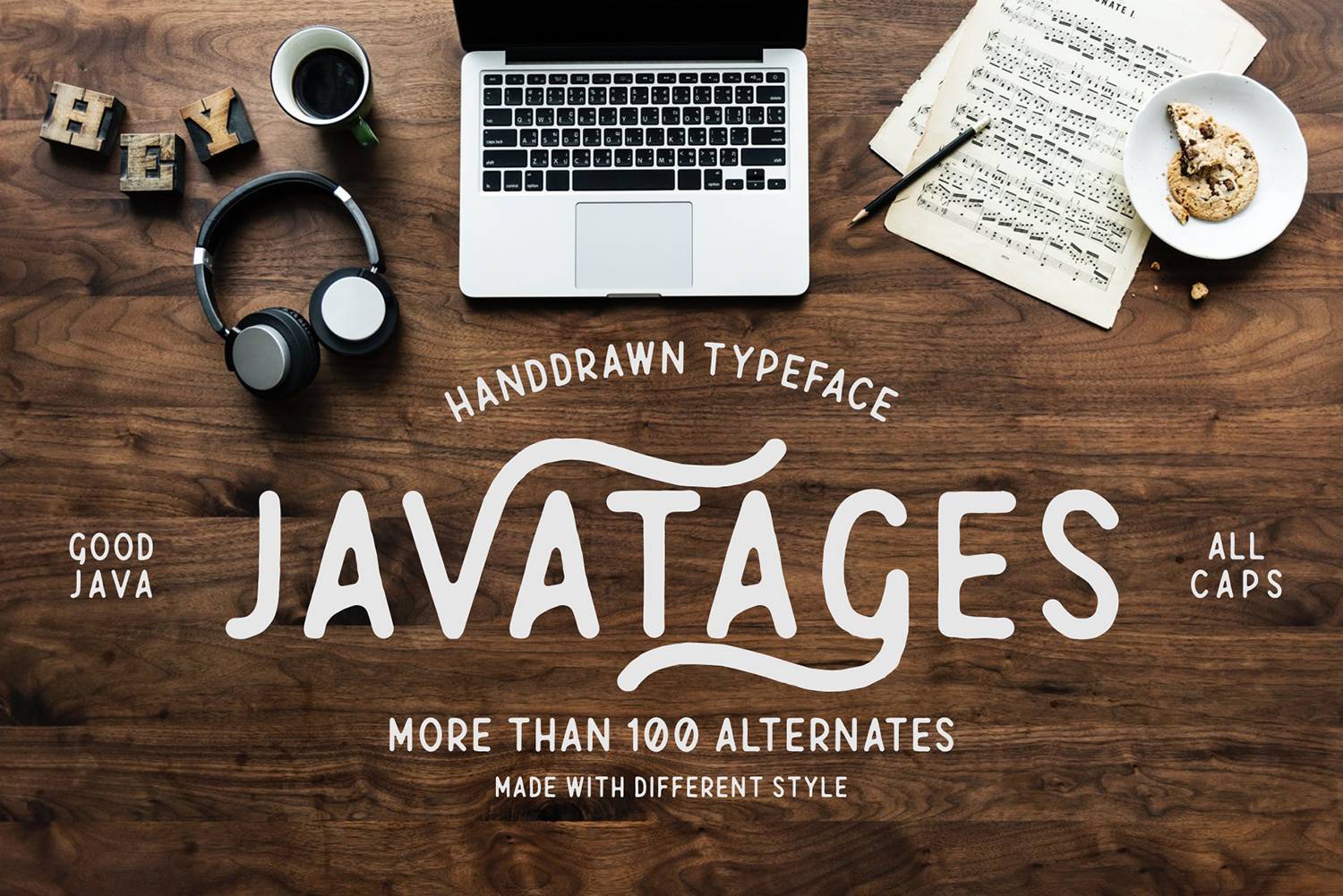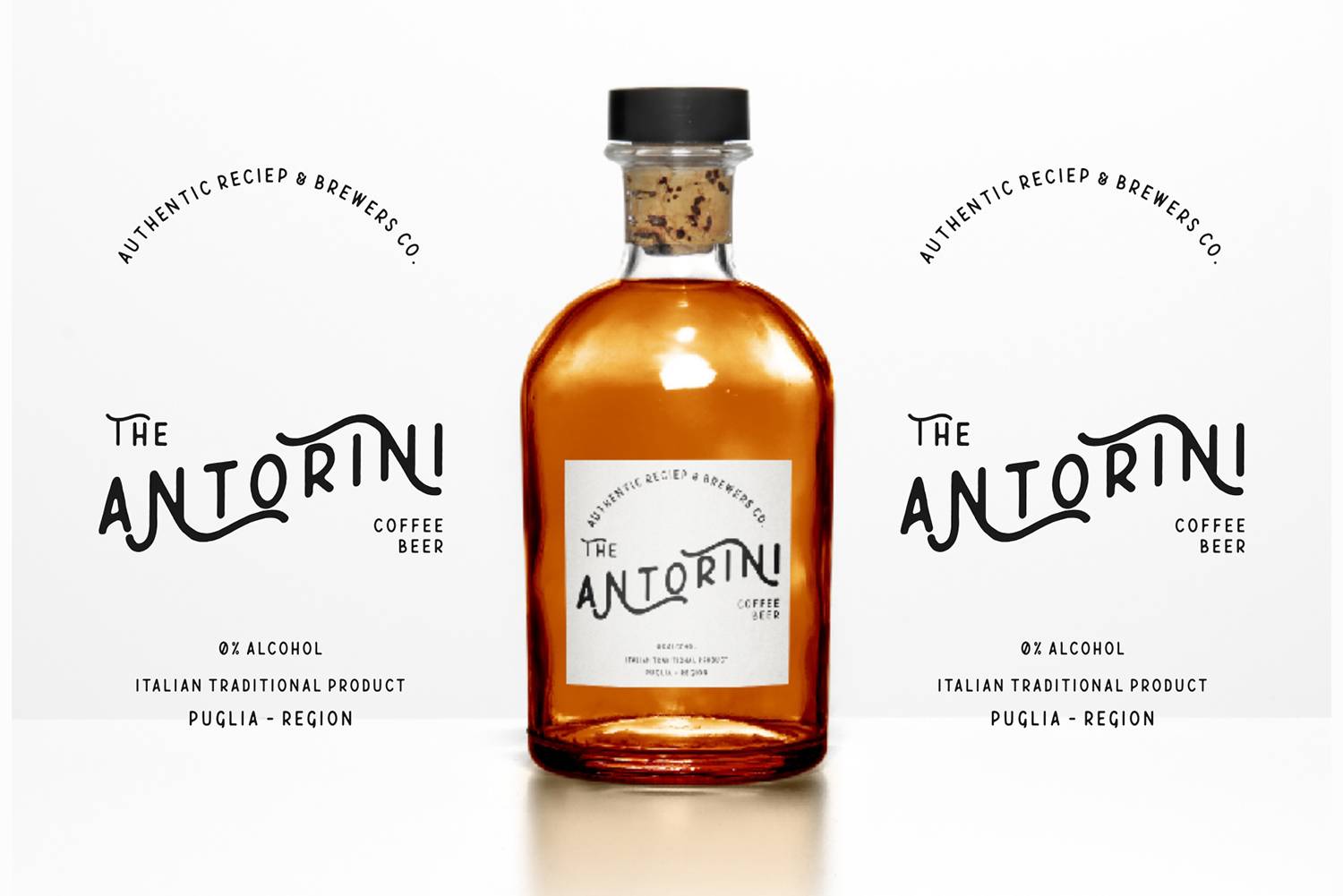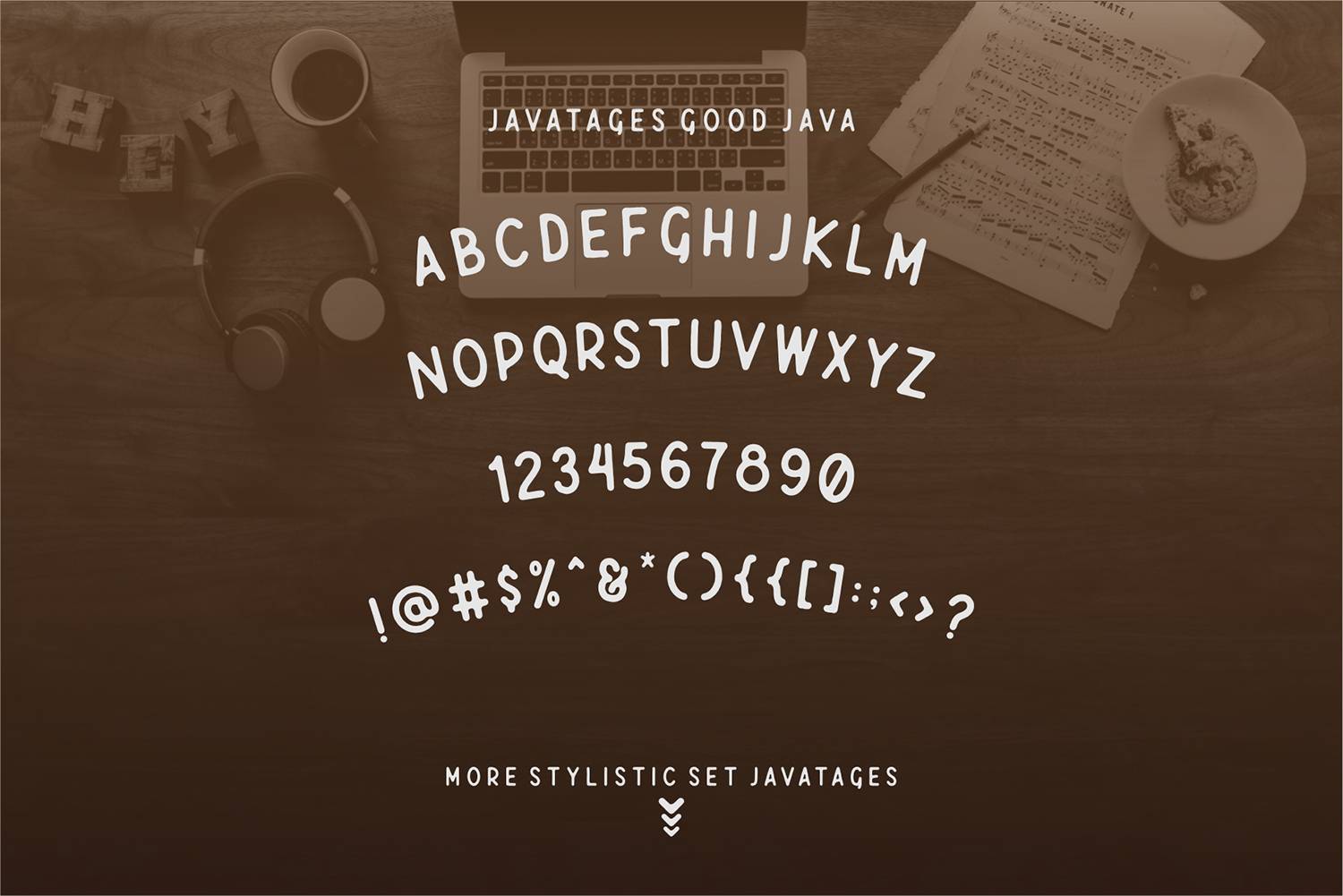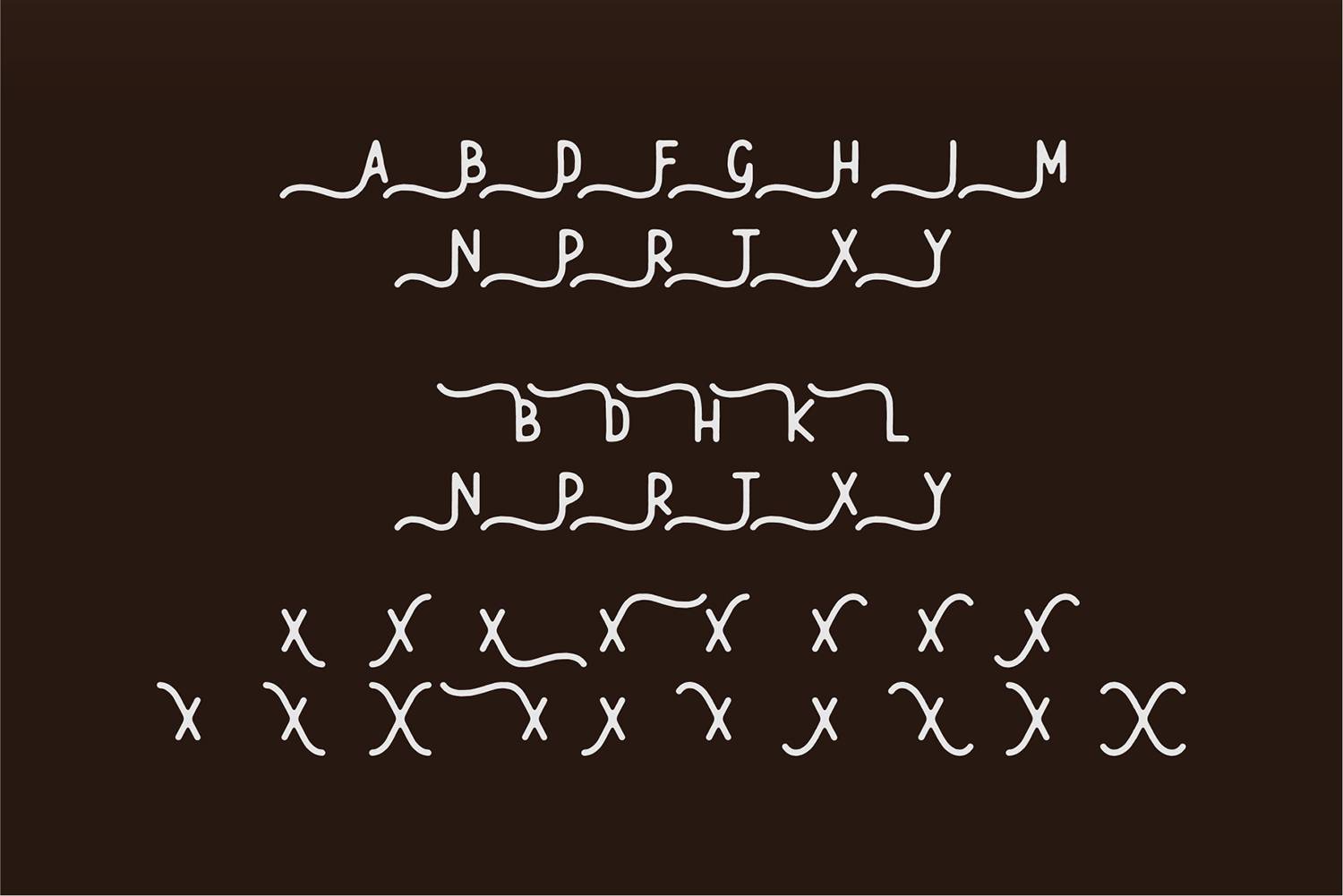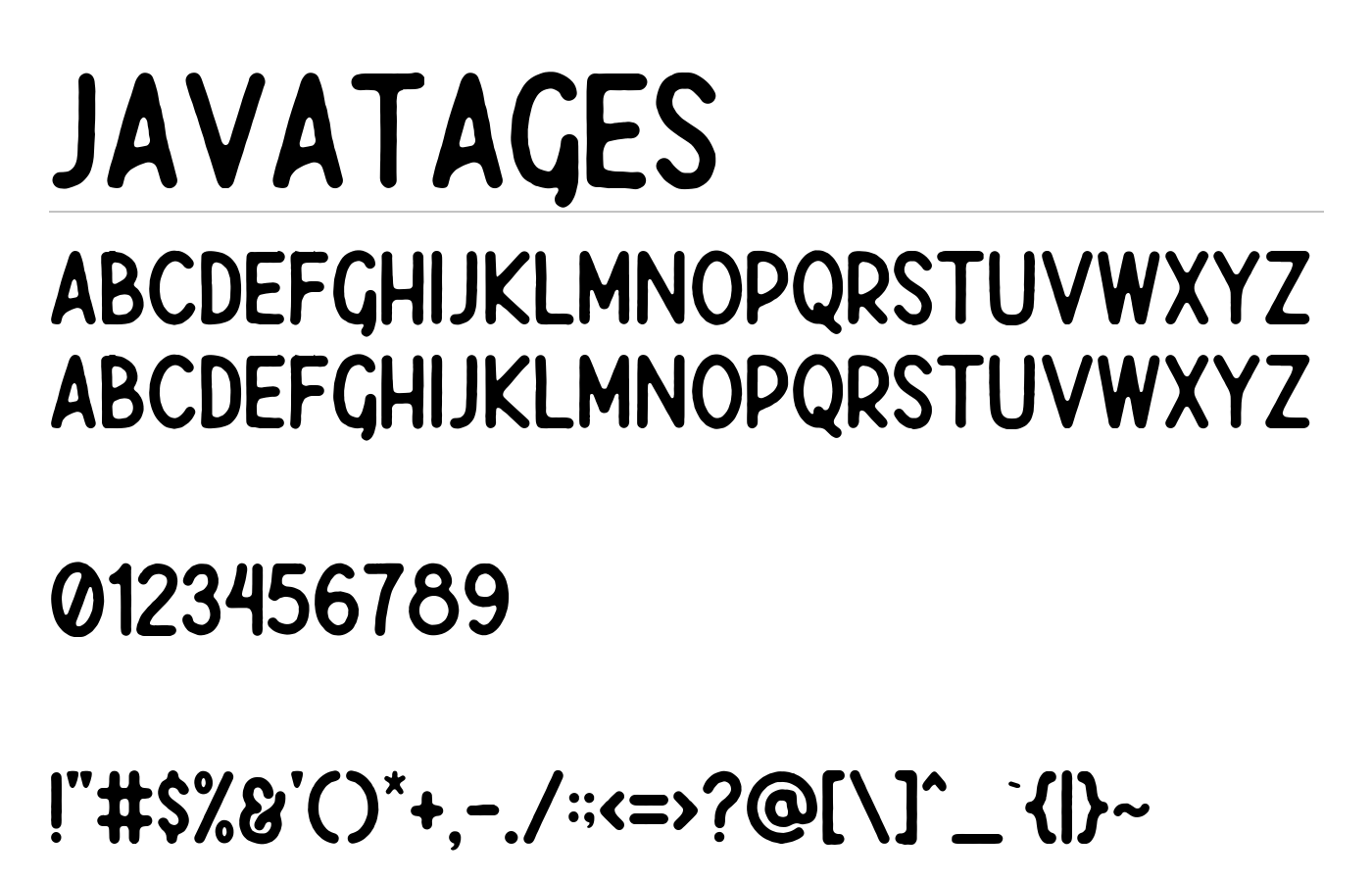
Javatages is a playful, casual sans serif font with a hand-drawn feel, featuring slightly irregular, rounded shapes and moderate stroke contrast. Its distinct quirky letterforms and clean lines make it ideal for fun, approachable branding, informal headlines, and creative projects that want to convey friendliness and uniqueness. This font works well in posters, children’s materials, and casual digital content where personality and readability matter.
Javatages Font
About Javatages Font
| Font family | Javatages Font |
| Designer | Good Java Studio |